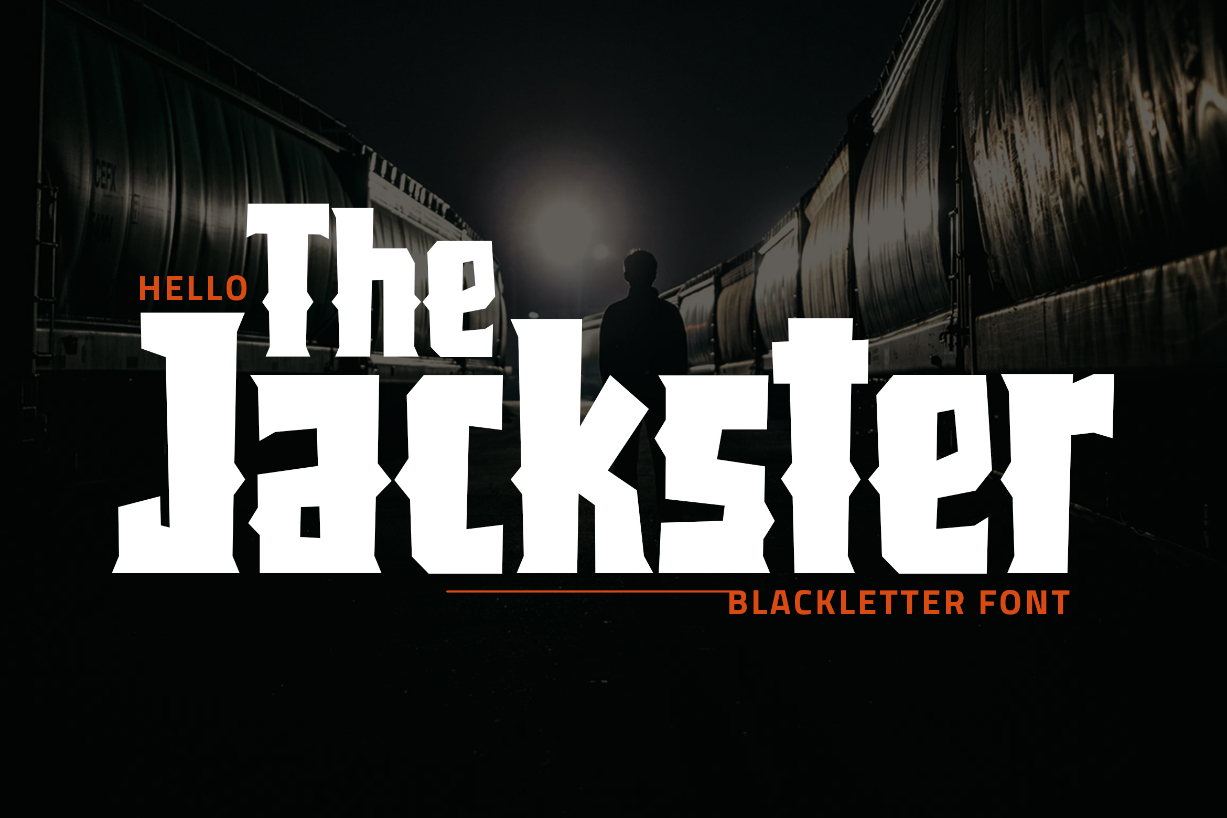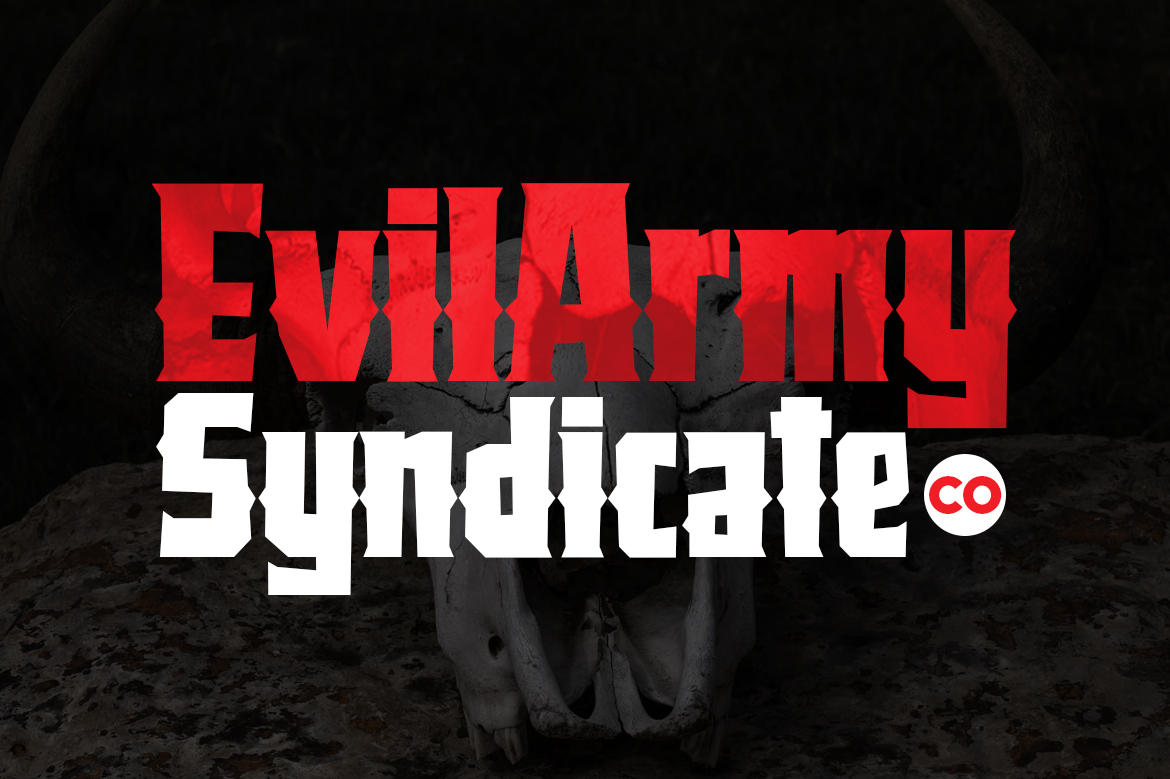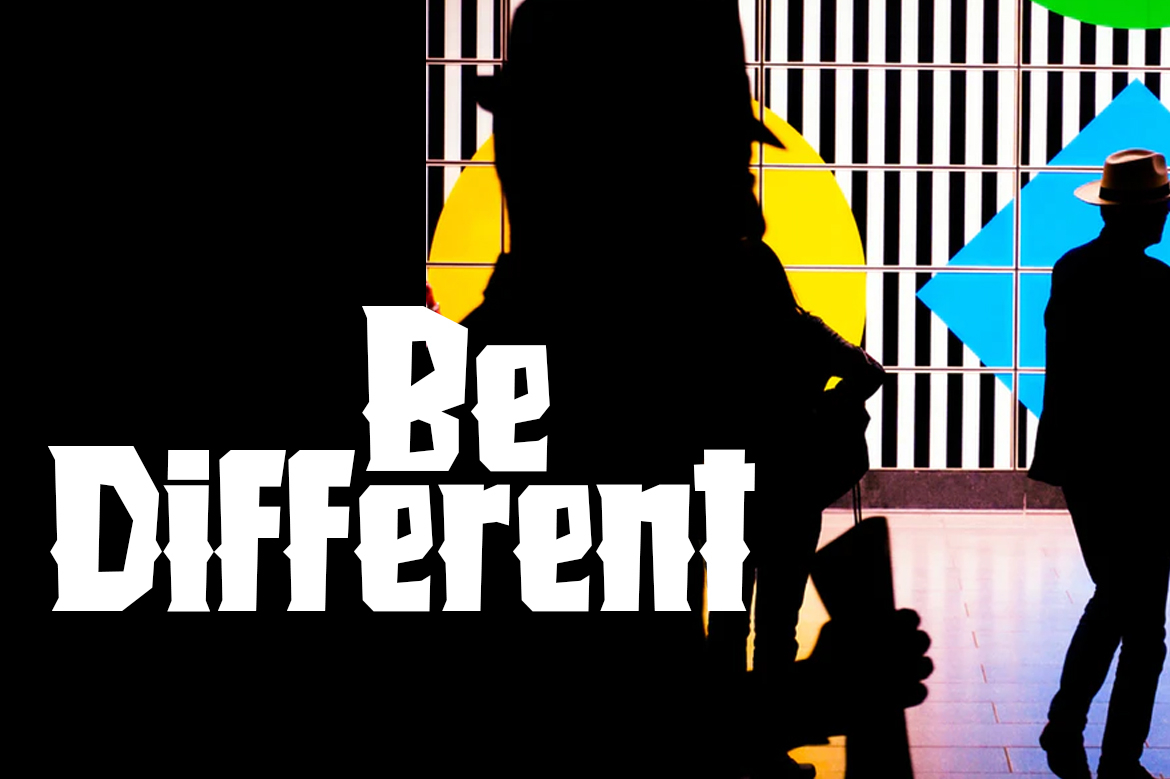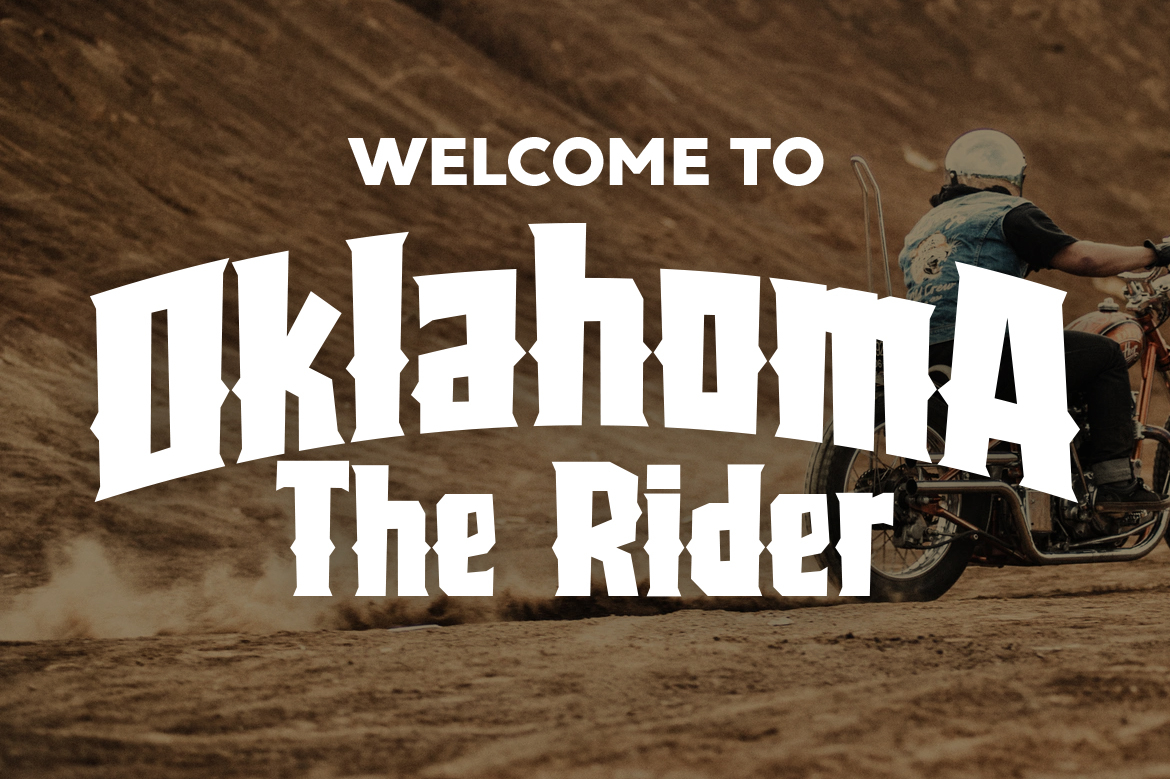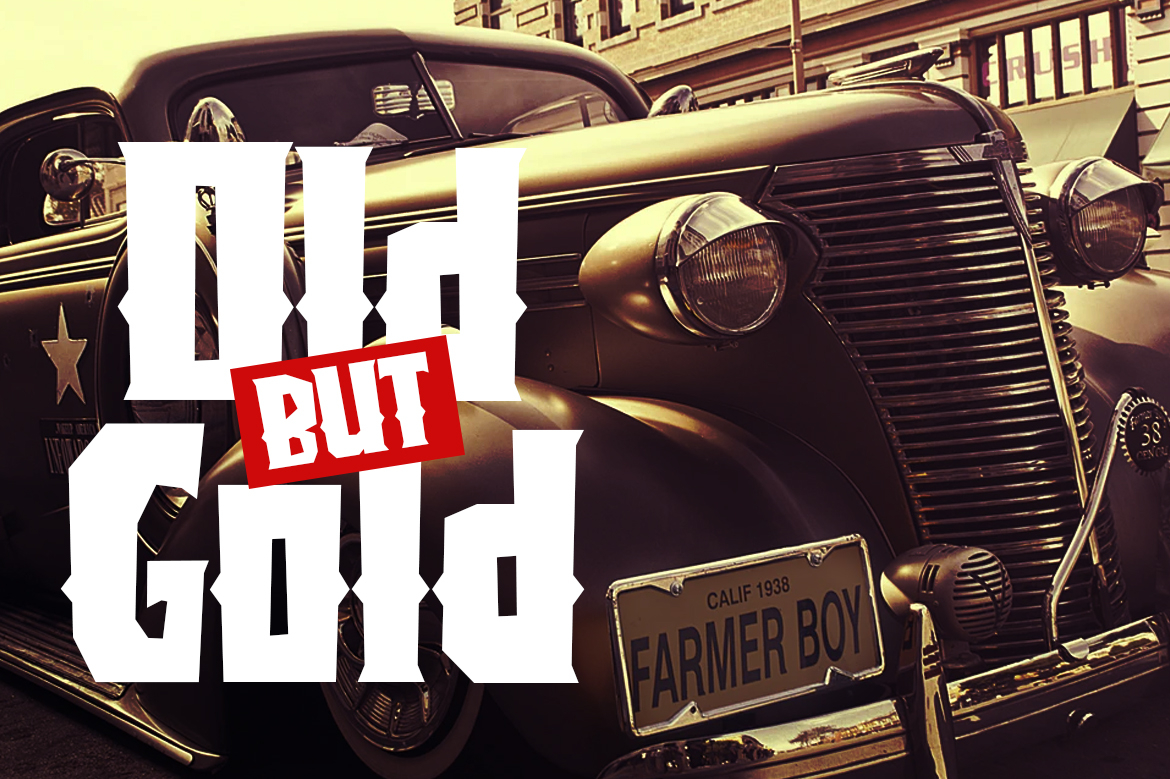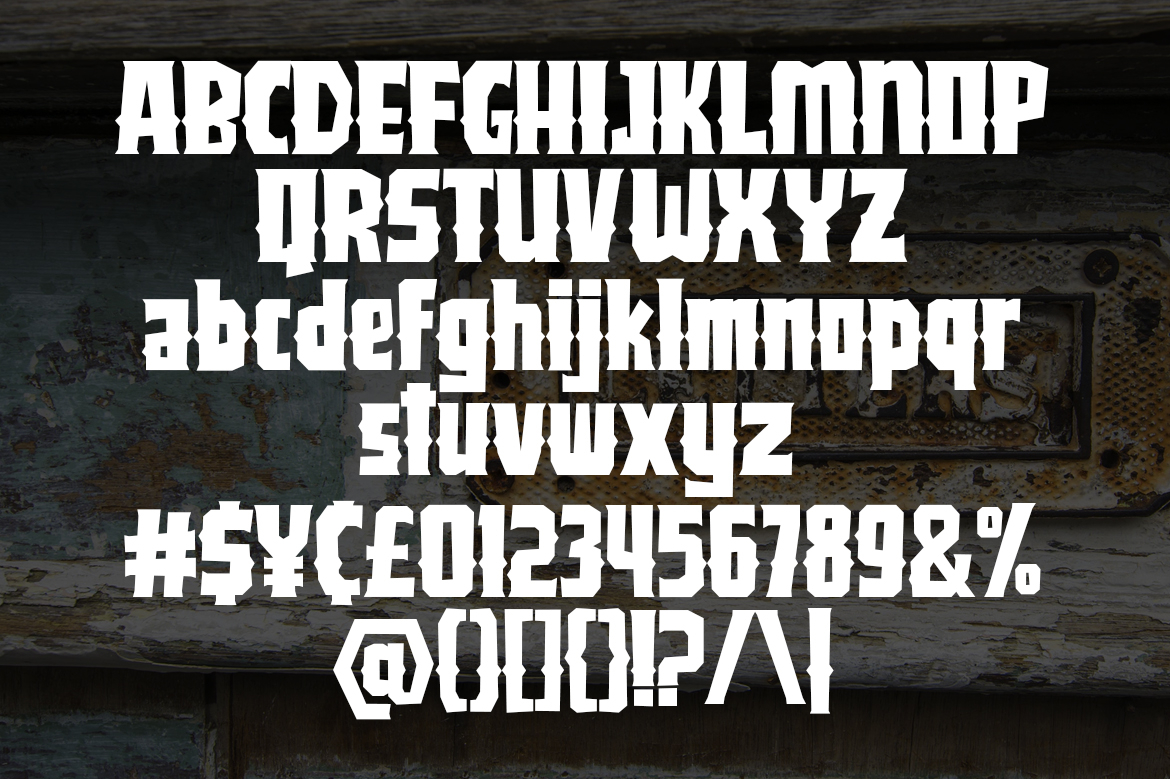
Jackster Font
About Jackster Font
Jackster is a bold and strong blackletter font that’s both serious and fun. It will take any Western or Cowboy -themed craft to the next level.